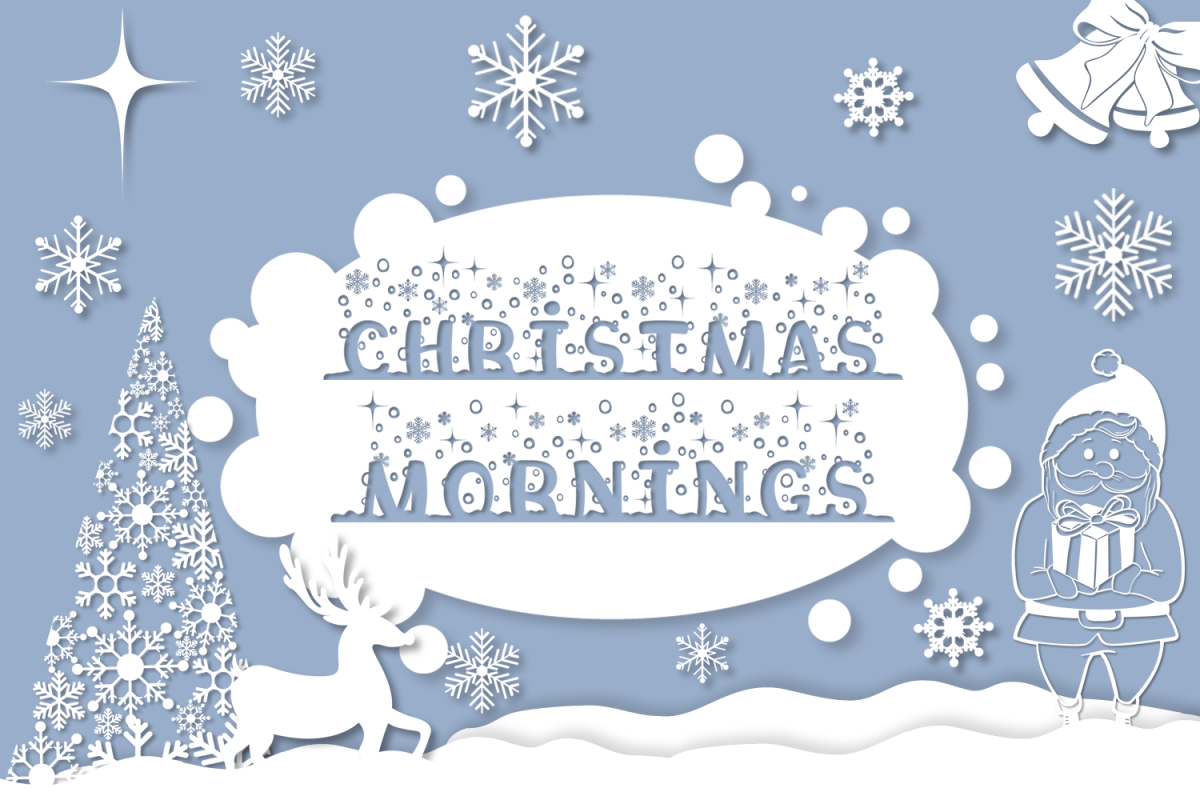
Christmas Mornings | Winter & Christmas Font with Extras
The Christmas Mornings font was originally created last year. Just like the rest of my fonts, it has a quirky, playful style that works great in craft projects and not only. The new version of the font has an improved kerning, some minor adjustments, plus a lot of new extras!
The font is created from scratch, using as little points as possible to ensure you get the best results with minimum difficulty. Optimized for crafters with Cricut Design Space, Silhouette Studio, ScanNCut, and all major brands. The cutting takes much less time because the number of points in each letter is reduced to a minimum!